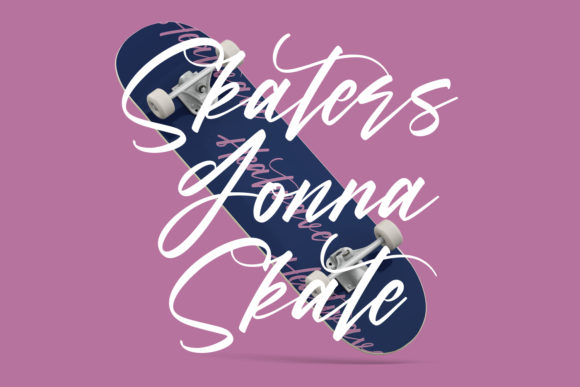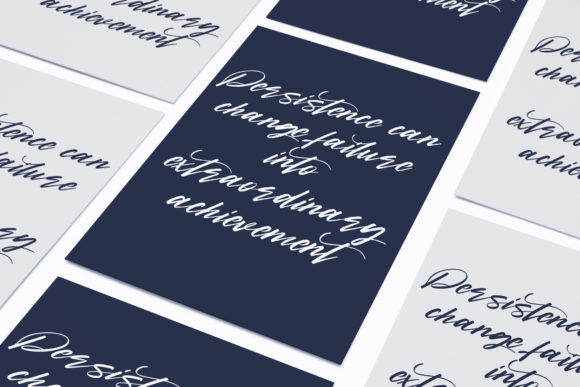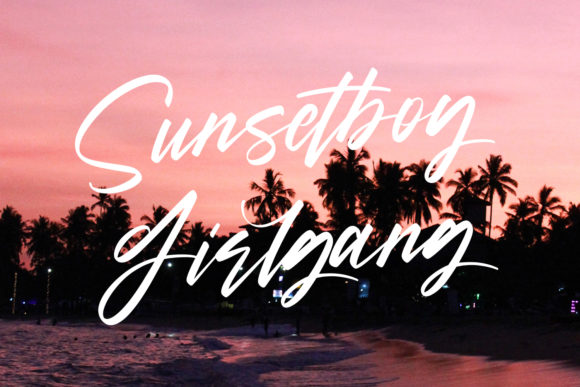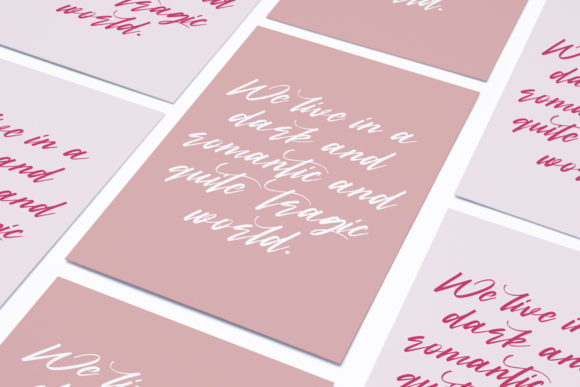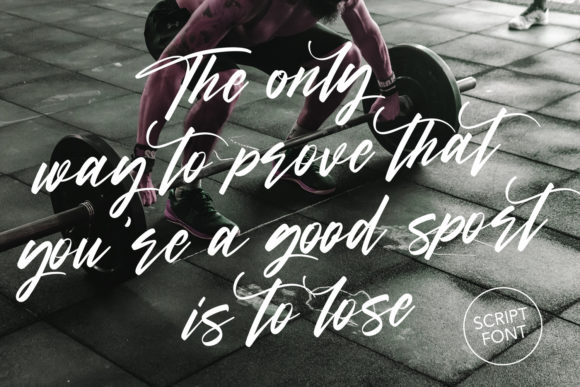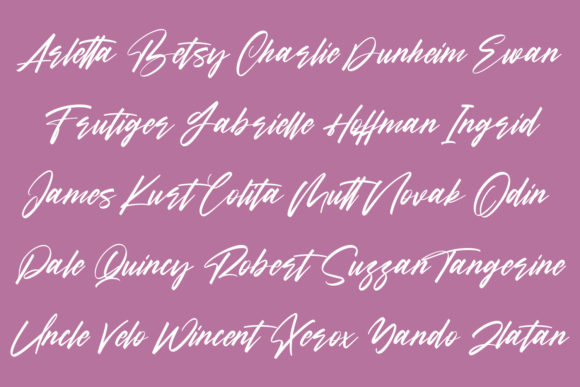
Introducing Heatwave Font: Elevate Your Designs with Elegance and Sophistication
Are you tired of using the same old fonts in your designs? Look no further! Heatwave Font is here to revolutionize the way you approach typography. This exquisite handwritten font is masterfully designed to become a true favorite among designers and crafters alike. With its classy calligraphic influences and contemporary feel, Heatwave Font is the perfect addition to any project.
The Perfect Blend of Classic and Modern
Heatwave Font strikes the perfect balance between traditional calligraphy and modern design. Its elegant, flowing lines and curves evoke a sense of sophistication and luxury, while its fresh and contemporary feel ensures it remains relevant and on-trend. Whether you’re working on a wedding invitation, a branding campaign, or a digital project, Heatwave Font is sure to impress.
What Makes Heatwave Font So Special?
- Unique and Exclusive Design: Heatwave Font boasts a distinctive and exclusive design that sets it apart from other fonts. Its intricate details and beautiful swashes make it perfect for adding a touch of elegance to any project.
- Highly Versatile: Heatwave Font is incredibly versatile and can be used for a wide range of projects, from print materials like brochures and business cards to digital applications like social media graphics and website headers.
- Easy to Read and Understand: Despite its ornate design, Heatwave Font is surprisingly easy to read and understand, making it perfect for body text as well as headlines and titles.
- Multilingual Support: Heatwave Font supports multiple languages, making it a great choice for designers and crafters working on international projects.
How to Use Heatwave Font in Your Designs
Using Heatwave Font in your designs is incredibly easy. Here are a few tips to get you started:
- Pair it with a Sans-Serif Font: For a beautiful contrast, pair Heatwave Font with a clean sans-serif font for body text.
- Use it for Headlines and Titles: Heatwave Font is perfect for headlines and titles, where its elegant design can really shine.
- Experiment with Swashes and Ligatures: Heatwave Font comes with a range of swashes and ligatures that can add an extra touch of elegance to your designs.
Why Designers and Crafters Love Heatwave Font
- It Adds a Touch of Elegance: Heatwave Font brings a level of sophistication and elegance to any project, making it perfect for high-end designs.
- It’s Highly Versatile: Whether you’re working on a print or digital project, Heatwave Font is incredibly versatile and can be used in a wide range of applications.
- It’s Easy to Use: Despite its intricate design, Heatwave Font is surprisingly easy to use and can be easily integrated into any design workflow.